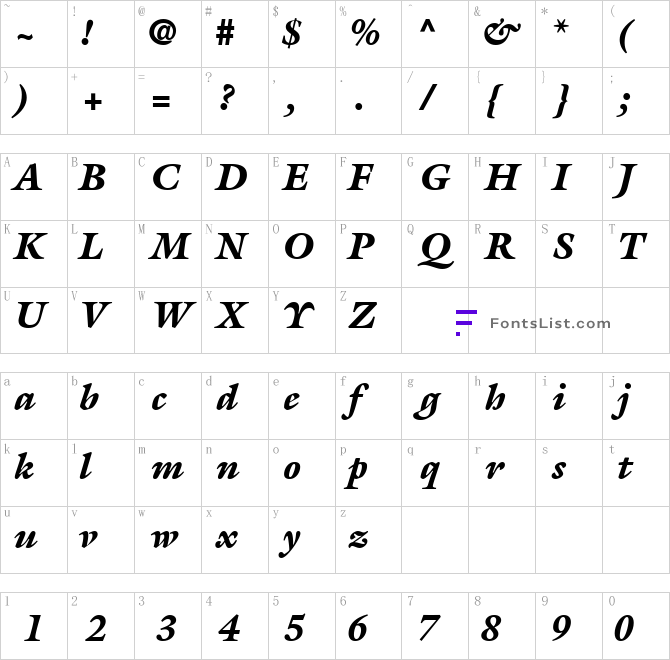
- Font Name:Acanthus Black SSi
Acanthus-Black-SSi-Black-Italic.ttf is a very beautiful artistic font, Acanthus-Black-SSi-Black-Italic.ttf is widely used in the design and printing of various books and pictures,Acanthus-Black-SSi-Black-Italic.ttf has a strong visual impact,Acanthus-Black-SSi-Black-Italic.ttf is a commonly used font in newspapers, magazines and books, and is used in posters, e-commerce Poster design, store design, logo design, font design and other fields.Acanthus-Black-SSi-Black-Italic.